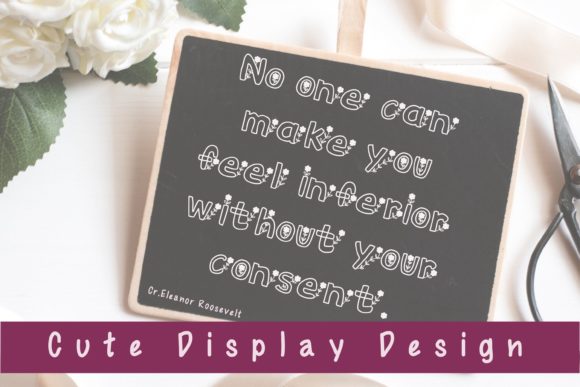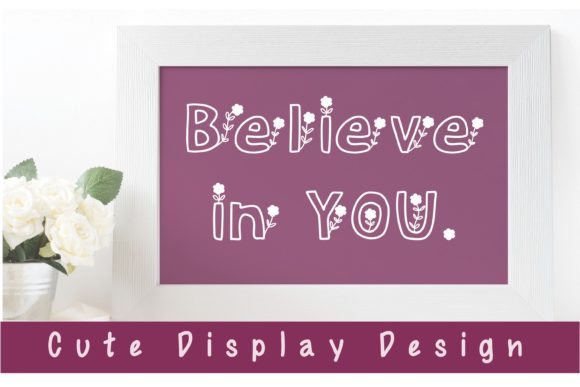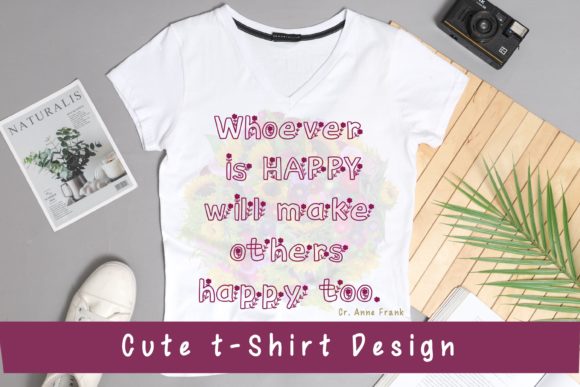
Introduction to Floralist Font
Floralist is a beautiful and dainty decorative font, featuring frail little flowers.
Featuring characters that dance along the baseline, this font will add a luxury spark to any design project that you wish to create .
Key Features of Floralist Font